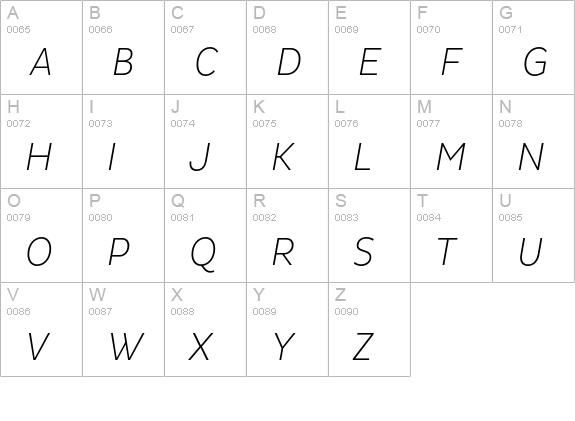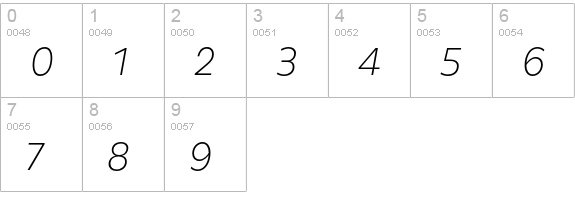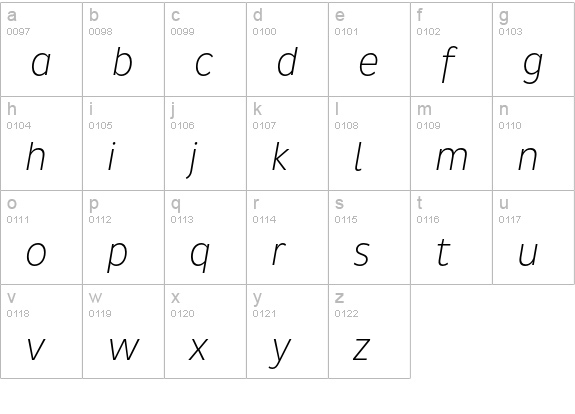
Pluto Sans Cond ExLight Italic is a distinctive, condensed-width, italic variant in the Pluto typeface family \xE2\x80\x94 well suited to design and typography projects.
Pluto Sans Cond ExLight Italic is a sleek and elegant font that exudes sophistication and modernity. Its slender design and subtle slant create a sense of movement and fluidity, making it perfect for adding a touch of style to any project. The delicate curves and precise lines of this typeface give it a contemporary feel that is both refined and versatile. Best of all, Pluto Sans Cond ExLight Italic is available for free download at FontsMarket.com. This means that you can easily access this stunning font and use it in your designs without any cost. Whether you're working on a branding project, a website design, or any other creative endeavor, Pluto Sans Cond ExLight Italic is sure to elevate your work and make a lasting impression. Download it today and see the difference it can make in your projects!